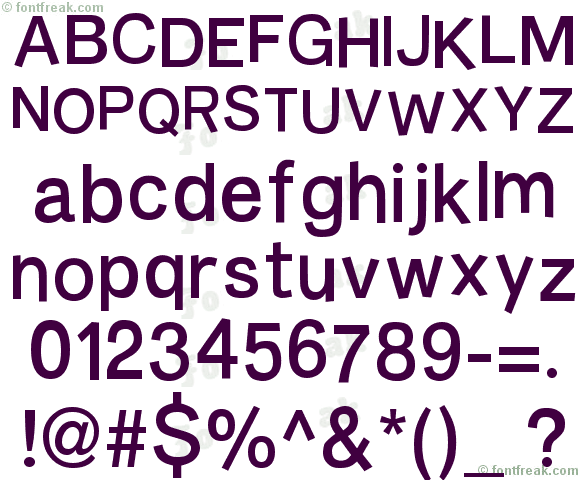
Burvetica Thick NC
Burvetica Thick NC, designed by Jayvee Enaguas, is a bold sans-serif typeface that exudes modernity and strength. Released between 2009 and 2011, this font showcases a robust stroke weight with minimal contrast, making it an ideal choice for impactful headings and titles. The letters are well-spaced, providing excellent legibility even at larger sizes, while the thick, chunky forms lend a sense of stability and presence to any design.
This versatile font is especially suited for a variety of use cases. It shines in graphic design projects such as movie posters, where attention-grabbing titles are crucial. Its commanding presence also makes it perfect for restaurant menus, drawing diners’ gazes to key offerings. For small business owners looking to create striking promotional materials, Burvetica Thick NC can elevate flyers and brochures, ensuring they stand out in a crowded marketplace. Additionally, it can be employed effectively in digital content, making it a great fit for social media graphics and online advertisements that require bold statements.
The target audience for Burvetica Thick NC includes graphic designers, content creators, and small business owners who seek a powerful font that conveys clarity and style. Its modern aesthetic appeals to those looking to make a strong visual impact without sacrificing readability.
What sets Burvetica Thick NC apart is its ability to combine strength with simplicity. The solid forms and clean lines create a cohesive design language that works well across various mediums. Whether you’re designing for print or digital platforms, the Burvetica Thick NC font free download offers an excellent opportunity to enhance your projects with a distinct and professional touch.